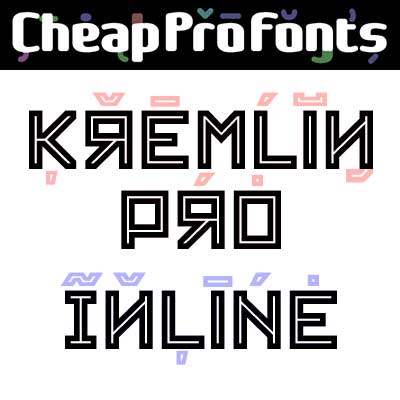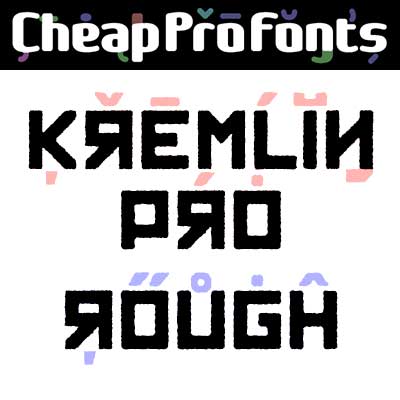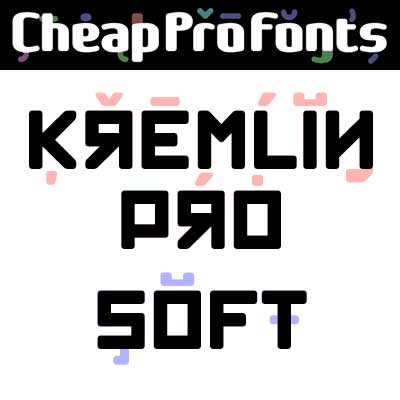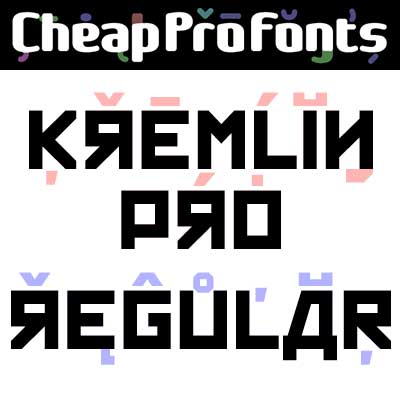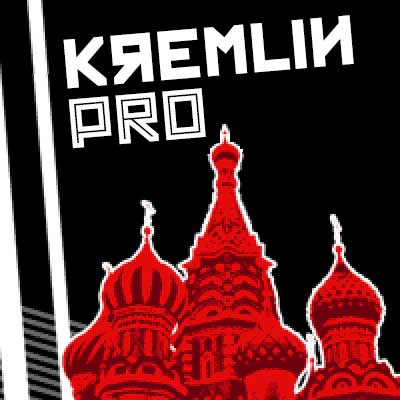
Kremlin Pro
Kremlin Pro by Vic Fieger
Vic Fieger
Most uppercase letters of this constructivist font are made to look like cyrillic letters, so by carefully interspersing those you can set your text and headlines with it and make it look russian!
To a native russian this of course looks very silly indeed, so to make amends for toying with their letters I have also included a full proper and genuine cyrillic character set.
So this is the first CheapProFonts font to support languages using the cyrillic script in addition to the usual 65 latin-based languages.
Vic Fieger says: "This font was designed with Russian constructivist artwork in mind, particularly works by El Lissitski.
The original incarnation of this font has appeared in places such as the animation graphic for The Colbert Report's "Cold War Update", and a cartoon from the world-famous JibJab website."
Kremlin Pro is a professionally reworked font that contains an extended character set for setting text in 65 languages requiring more than the basic A-Z!
Kremlin Pro Regular
Kremlin Pro Regular by Vic Fieger
Kremlin Pro Inline
Kremlin Pro Inline by Vic Fieger
Kremlin Pro Rough
Kremlin Pro Rough by Vic Fieger
Kremlin Pro Soft
Kremlin Pro Soft by Vic Fieger